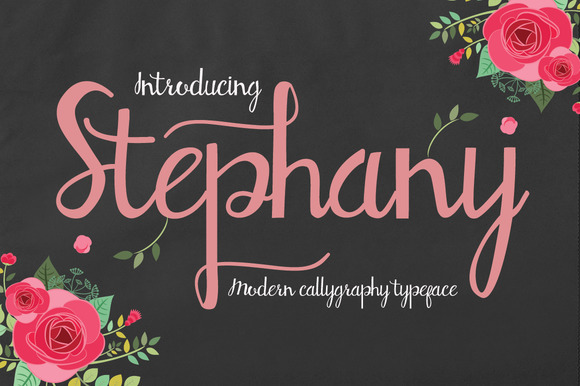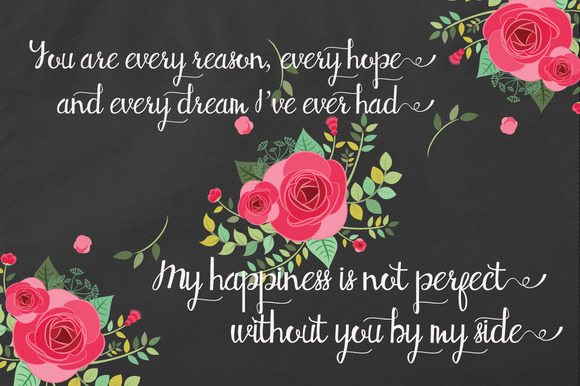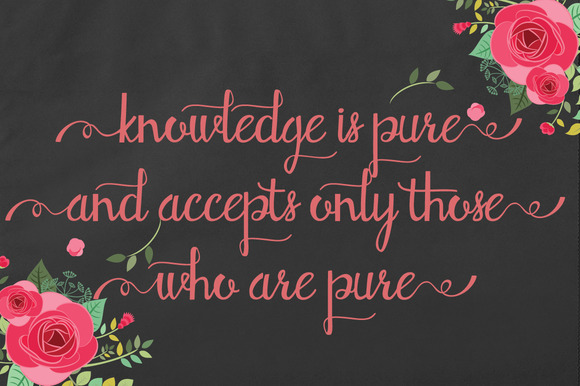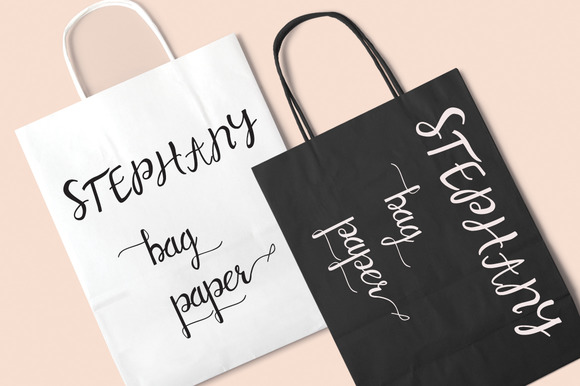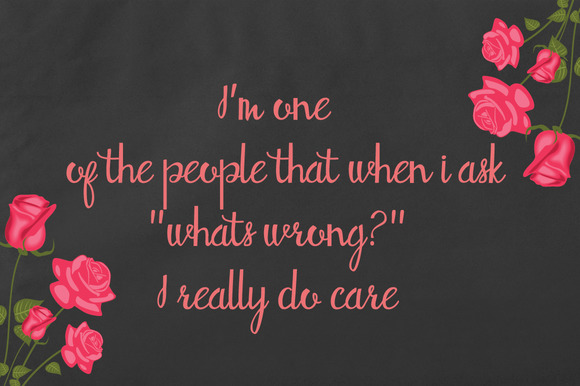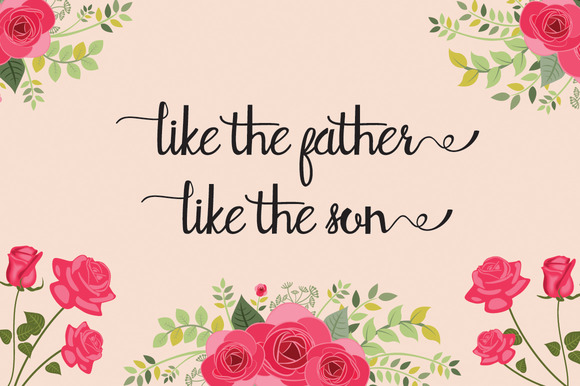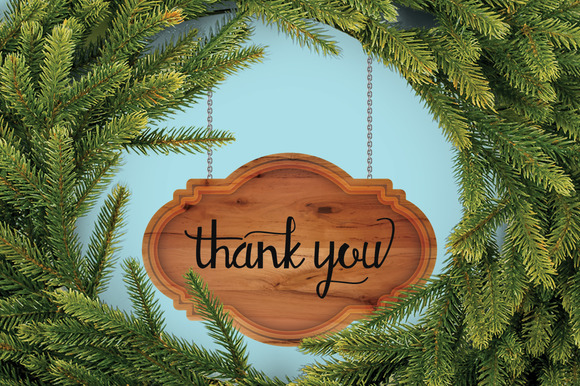
Stephany Font
About Stephany Font
Stephany is a unique and beautiful, bold, brush script typeface. It’s a combination of modern calligraphy typefaces and calligraphy writing styles. Can be used for various purposes. such as headings, logos, wedding invitations, t-shirts, letterheads, signage, labels, news, posters, badges, etc.